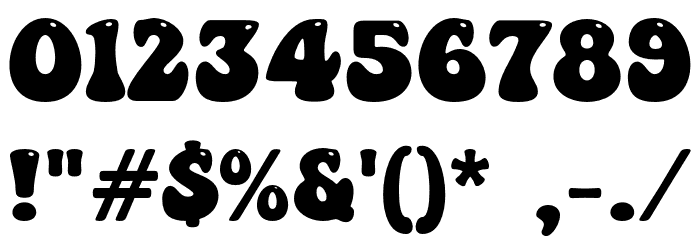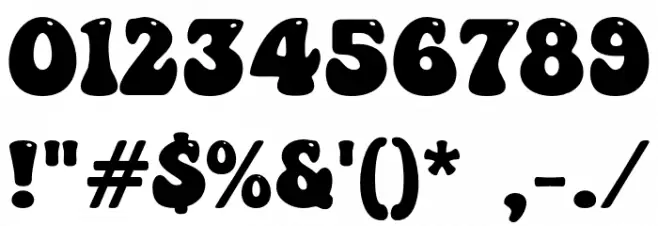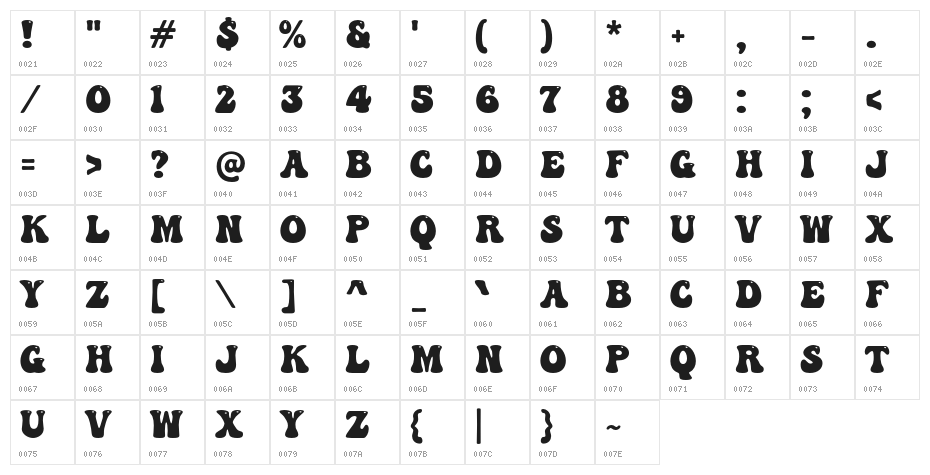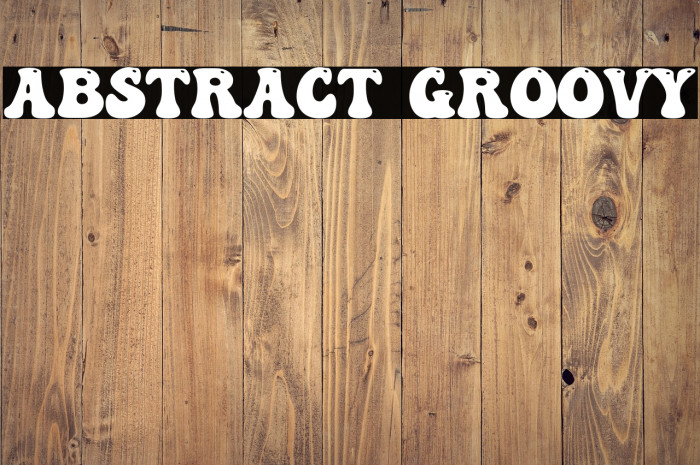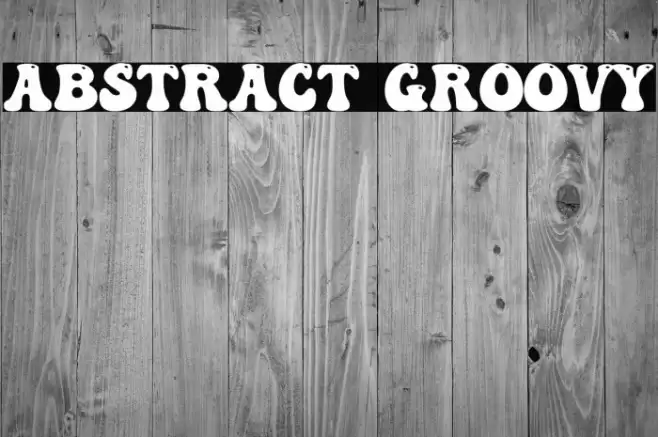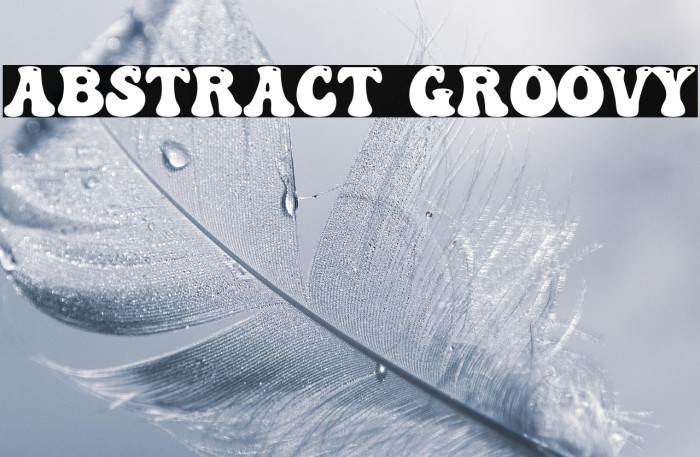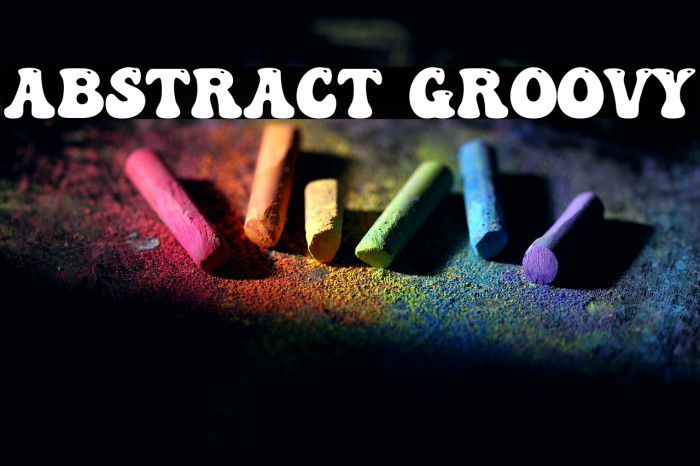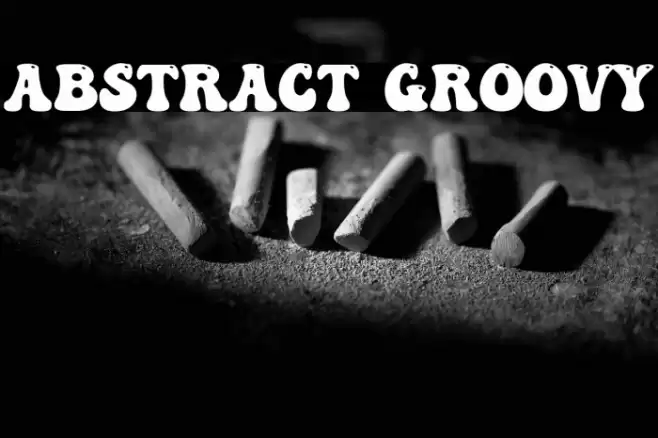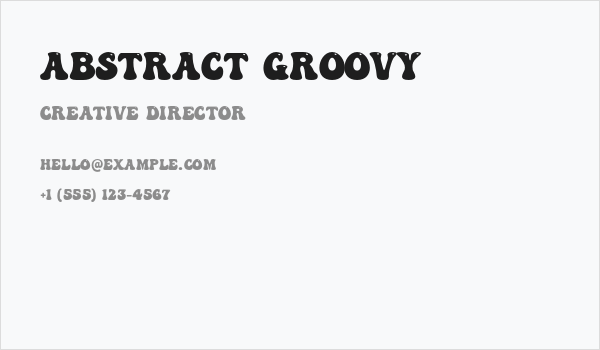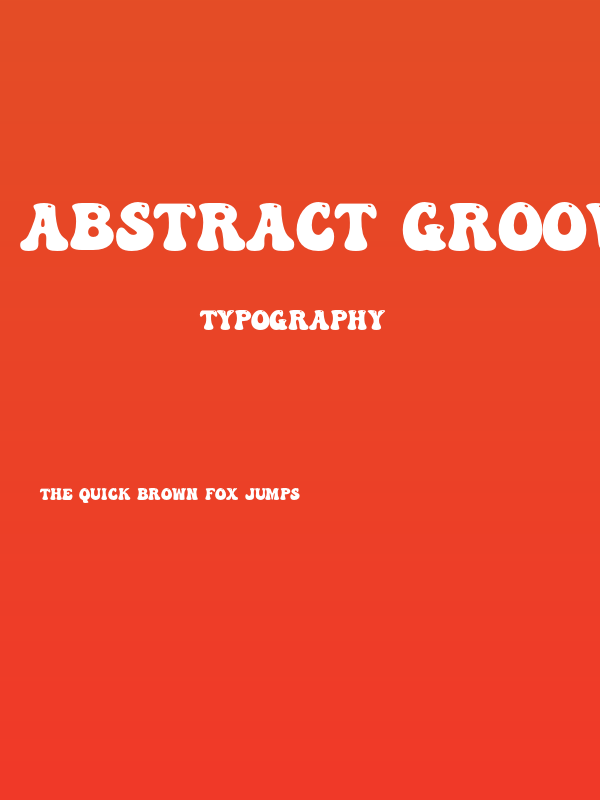
Abstract Groovy Font
Abstract Groovy Description
This font features a bold and playful design, characterized by its thick, rounded strokes and a groovy, retro aesthetic. The letters have a bubbly appearance, with exaggerated curves and a sense of movement that evokes a sense of fun and nostalgia. The numbers and special characters maintain this whimsical style, ensuring consistency across all elements. The overall look is reminiscent of 1960s and 1970s design trends, making it ideal for projects that aim to capture a vintage or playful vibe. Its boldness ensures high visibility, making it suitable for attention-grabbing headlines or logos.
| Proposed Projects | Ideal for retro-themed designs, playful branding, posters, album covers, and event invitations. |